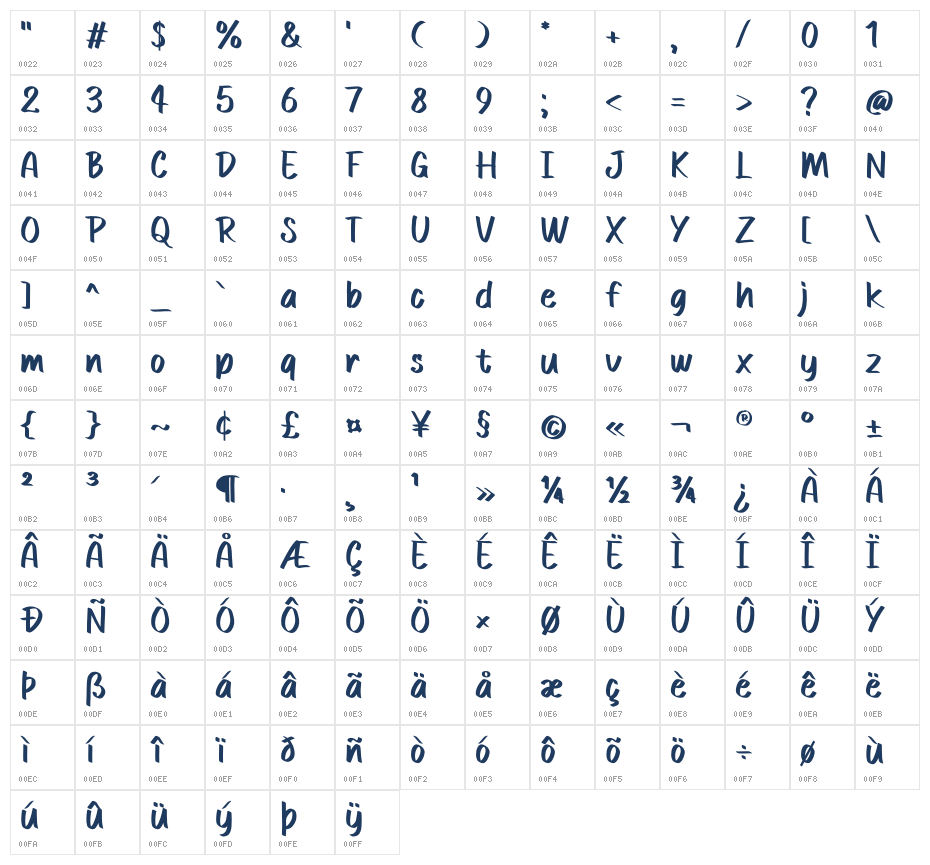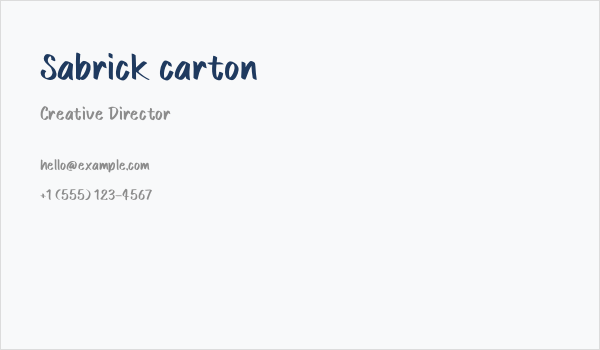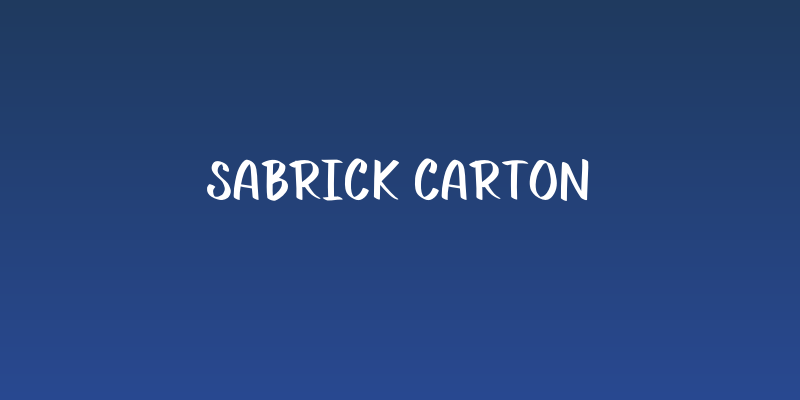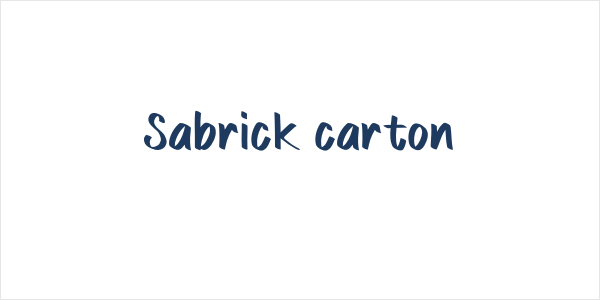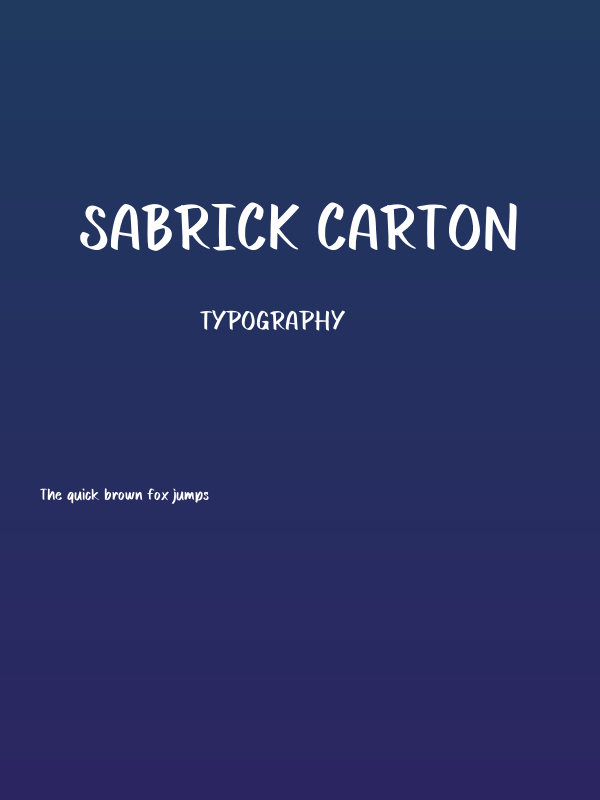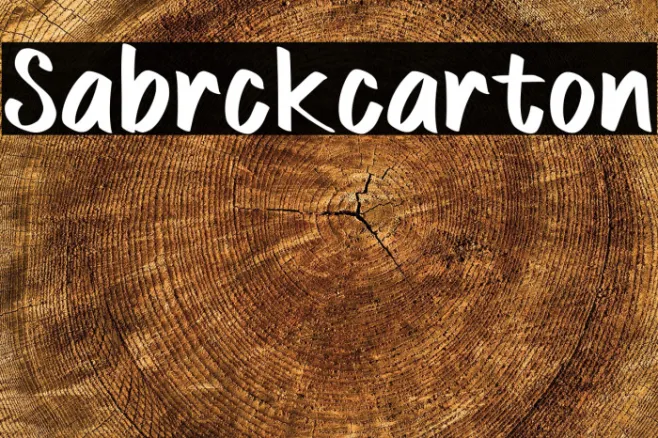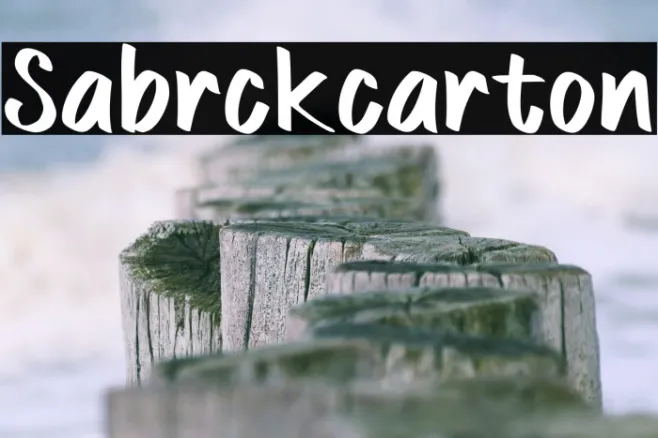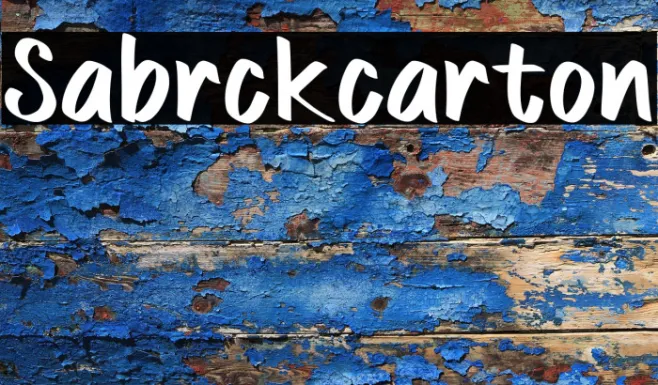
Sabrick carton Font
Sabrick carton Description
A playful, handwritten style font with a casual and friendly appearance, featuring slightly irregular strokes and a bold, rounded form.
| Overall Style | Casual, Friendly, Handwritten |
| Use Case | Headlines, Logos, Greeting Cards, Children's Materials |